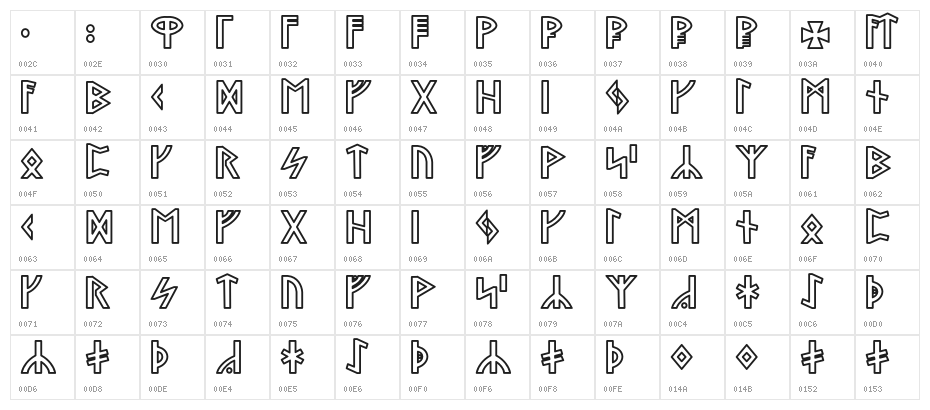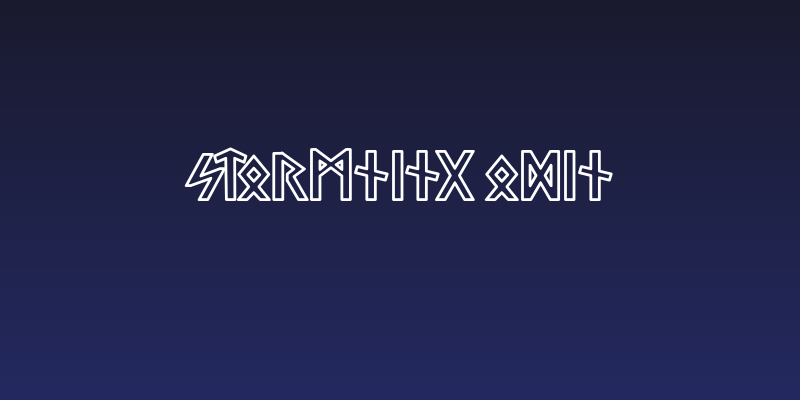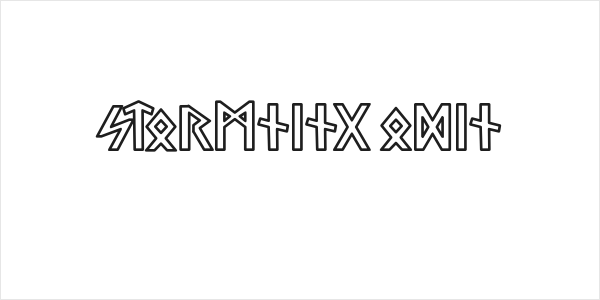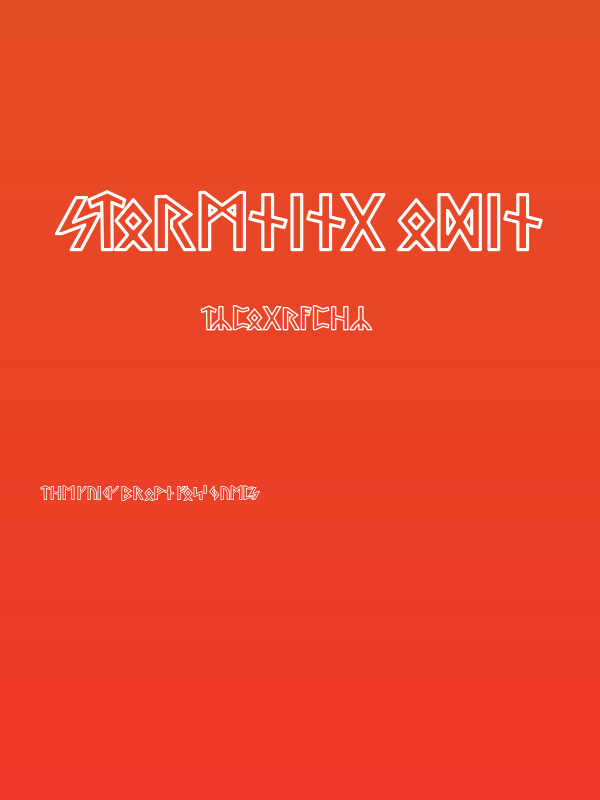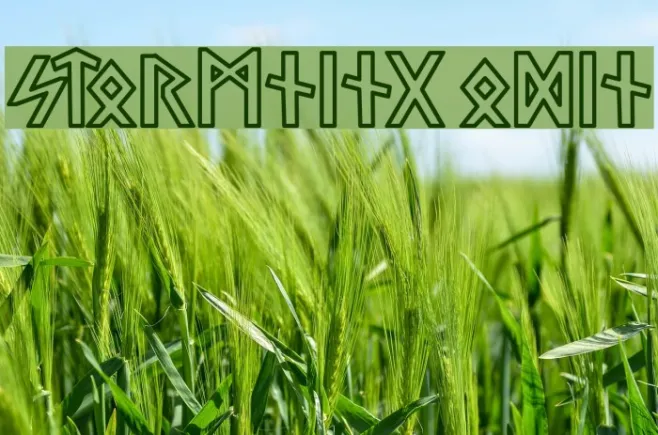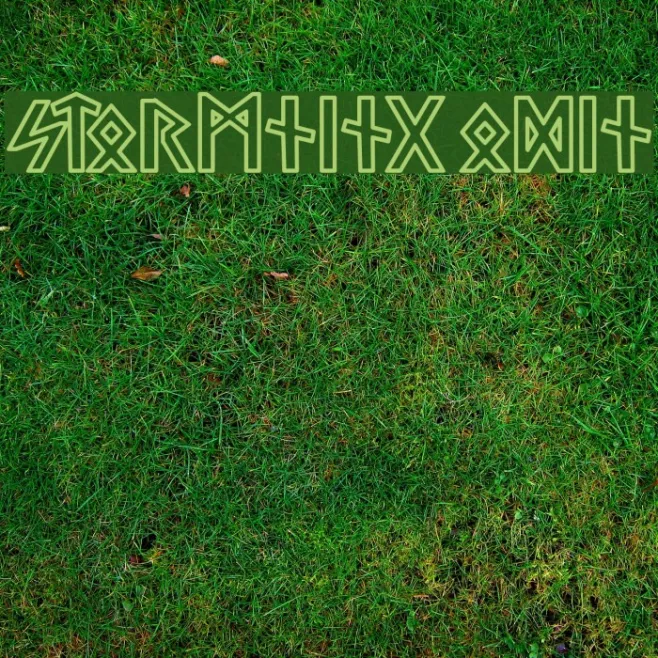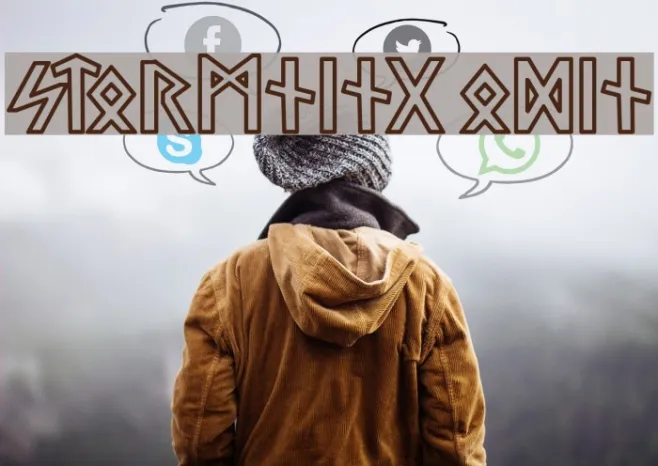
Stormning Odin Font
Stormning Odin Description
This font features a bold, angular design reminiscent of ancient runes or Norse-inspired typography. The characters are constructed with sharp, geometric lines that create a sense of strength and mystery. Each letter is distinct, with unique angles and cuts that give the font a decorative and thematic appearance. The uppercase and lowercase letters share a similar style, maintaining the font's cohesive look. The numbers and special characters are equally stylized, fitting seamlessly with the overall aesthetic. This font is ideal for projects that require a touch of the mythical or historical, such as fantasy-themed designs or branding that seeks to evoke a sense of ancient power.